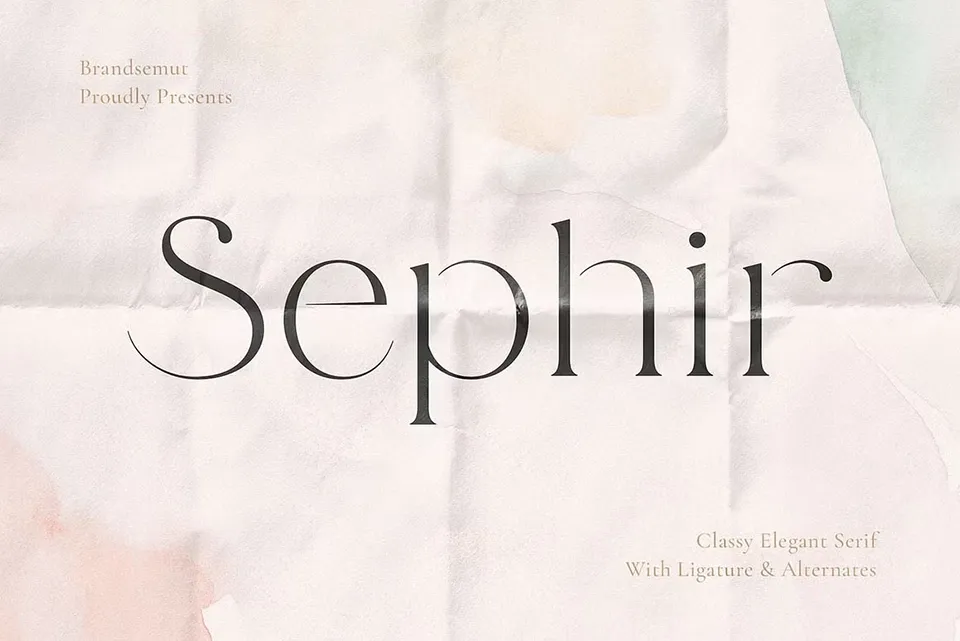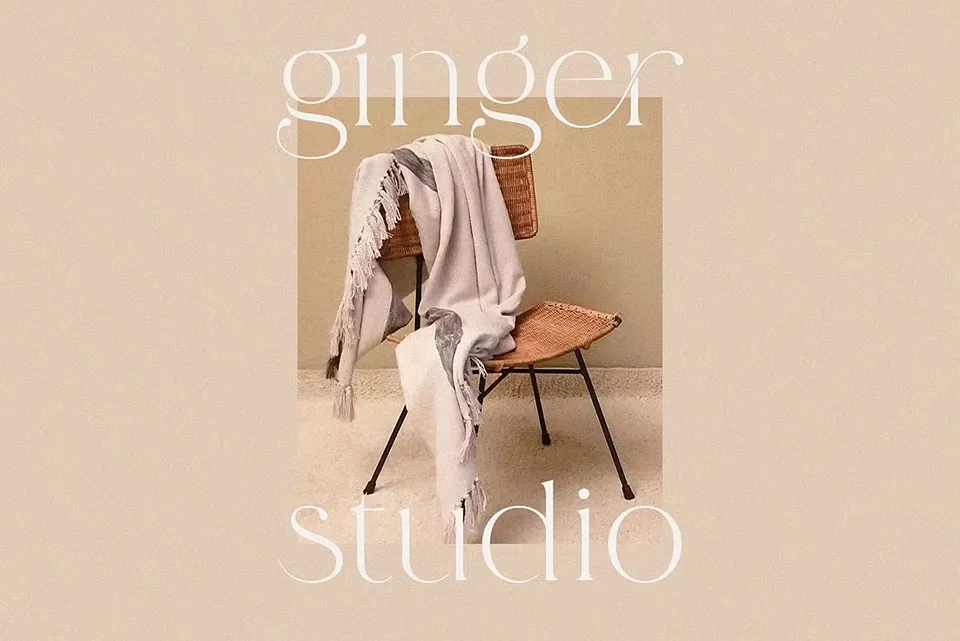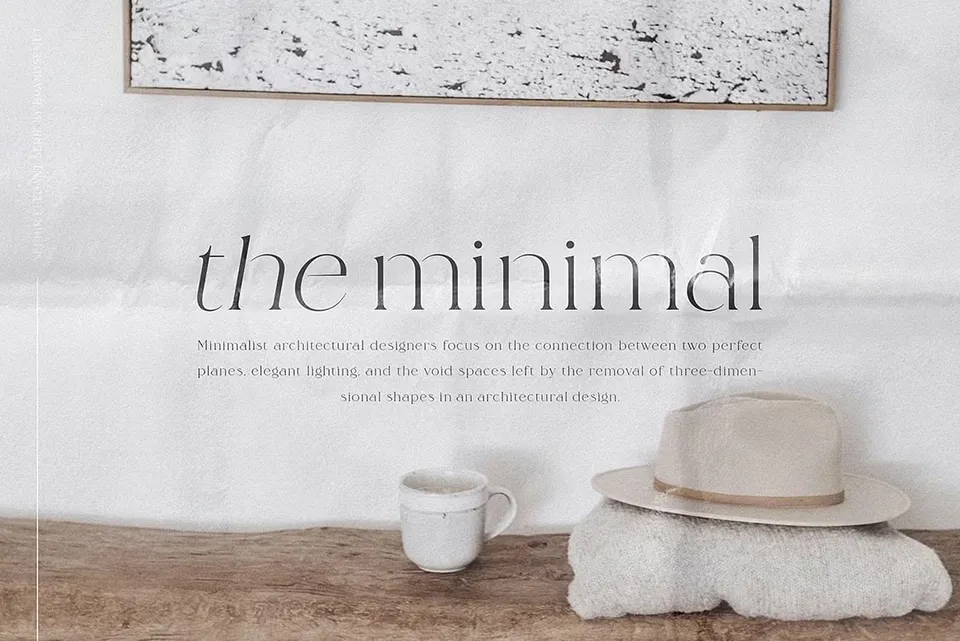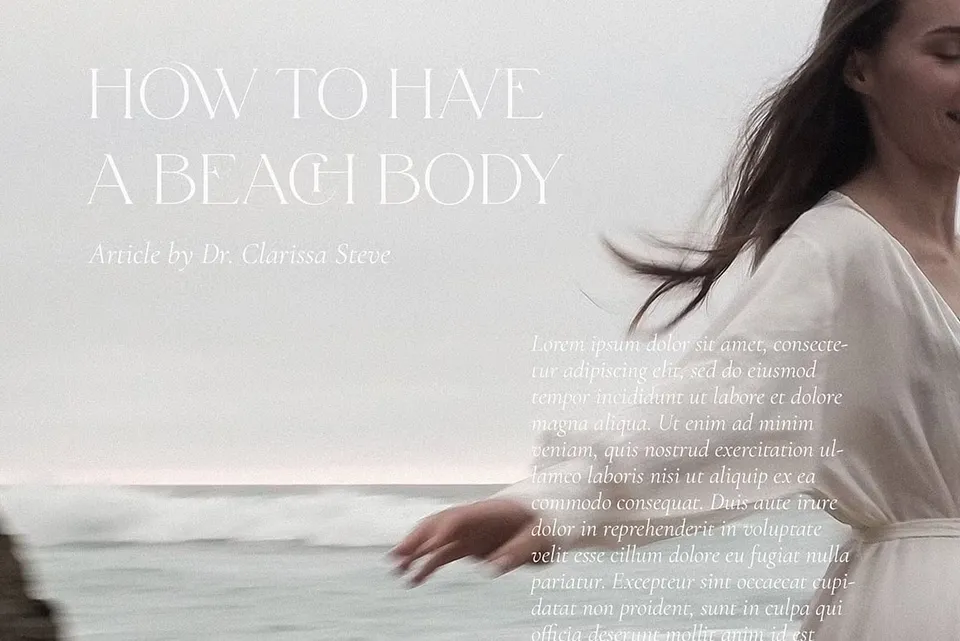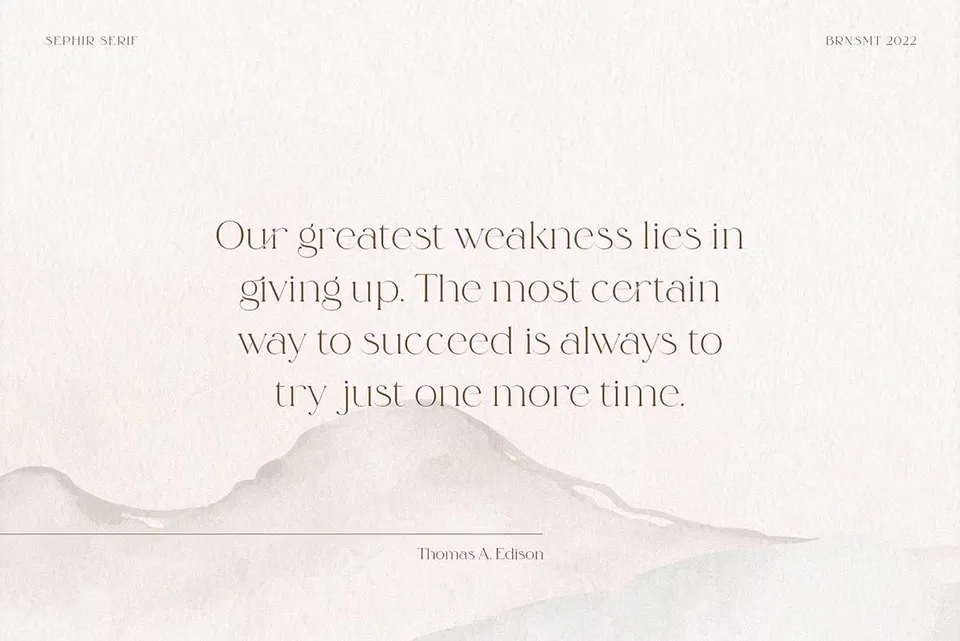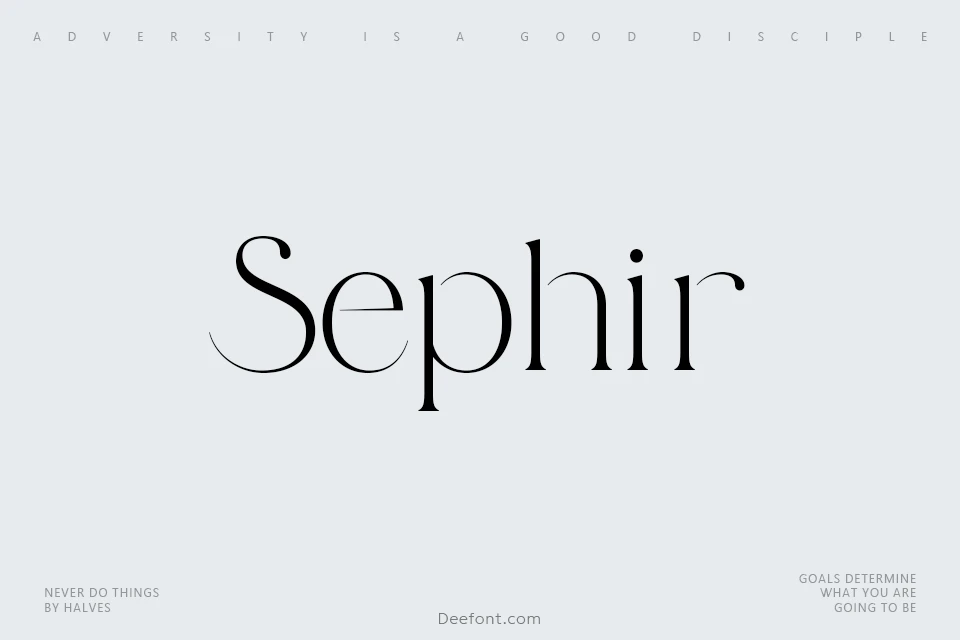
Sephir Font
Sephir Font is a modern, elegant and classy serif font designed by BrandSemut. This aesthetic display serif typeface features clean lines and smooth curves that give any project an extra touch of class. Sephir is best used as a display font for headings, logos, branding, magazines, product packaging and invitations. The font comes with alternatives and ligatures, making it a sophisticated choice for designers seeking to impart an air of luxury and impeccable taste onto their projects. With its stately presence and stylish flair, Sephir stands as a testament to the timeless allure of well-crafted typefaces.